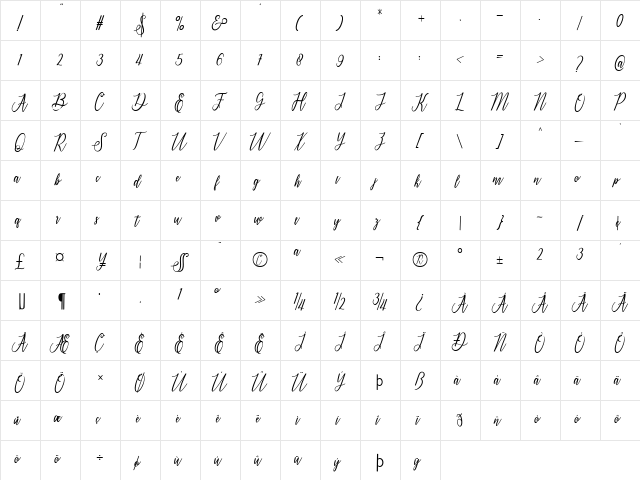
delthami Regular
| Foundry | Syahputra/Bexxtype |
| Designer | Syhaputra/Bexxtype |
Design Context for delthami Typeface
delthami is a composed and adaptable typeface that performs quietly and consistently across a wide range of design contexts.